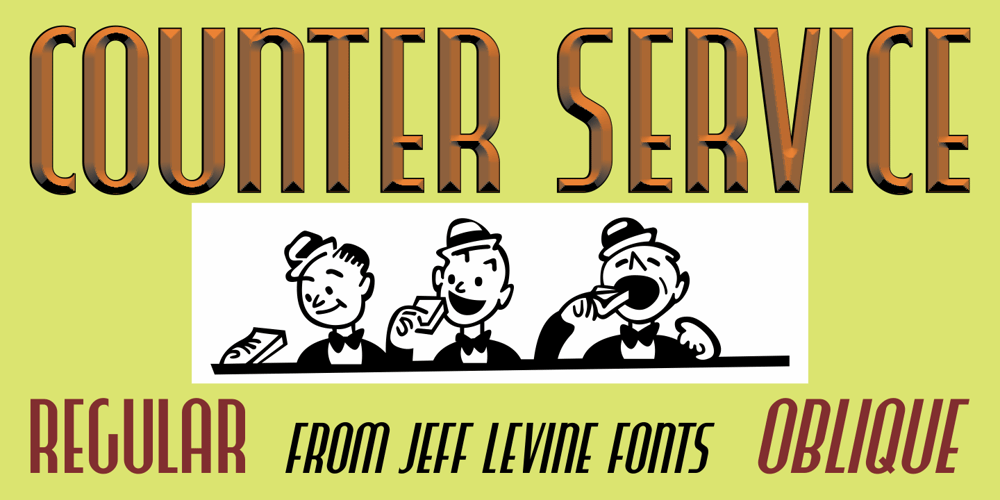
Counter Service JNL Font Family was designed by Jeff Levine and published by Jeff Levine. Counter Service JNL contains 2 styles and family package options. The hand lettered name “Chickland” from a 1958 restaurant menu cover was actually a throwback to the Art Deco style with its condensed thick and thin sans serif design. With just a few available letters to work with, it has been turned into Counter Service JNL; available in both regular and oblique versions.